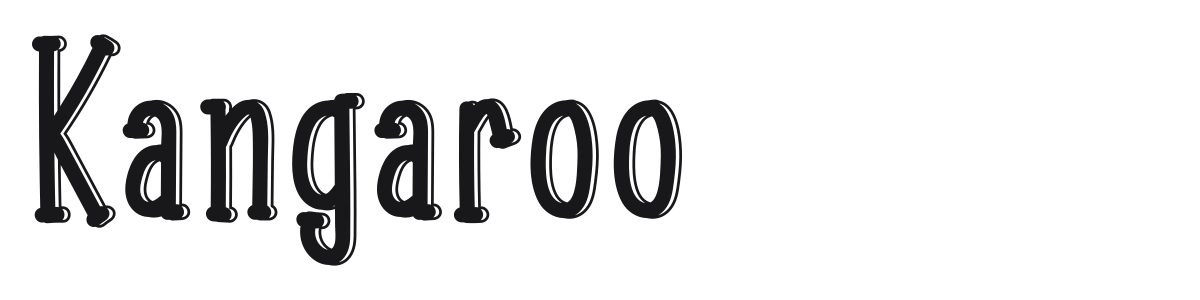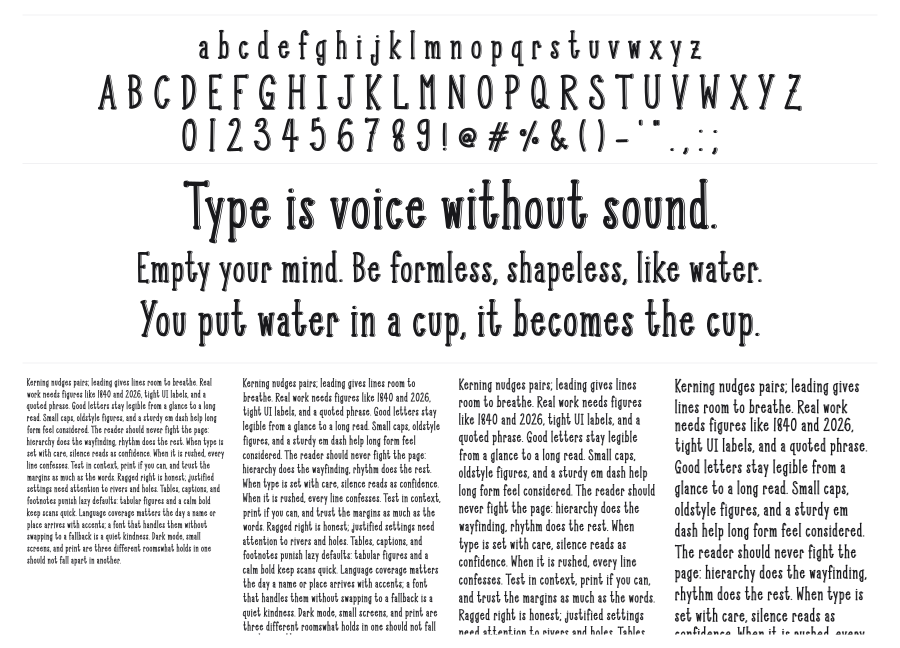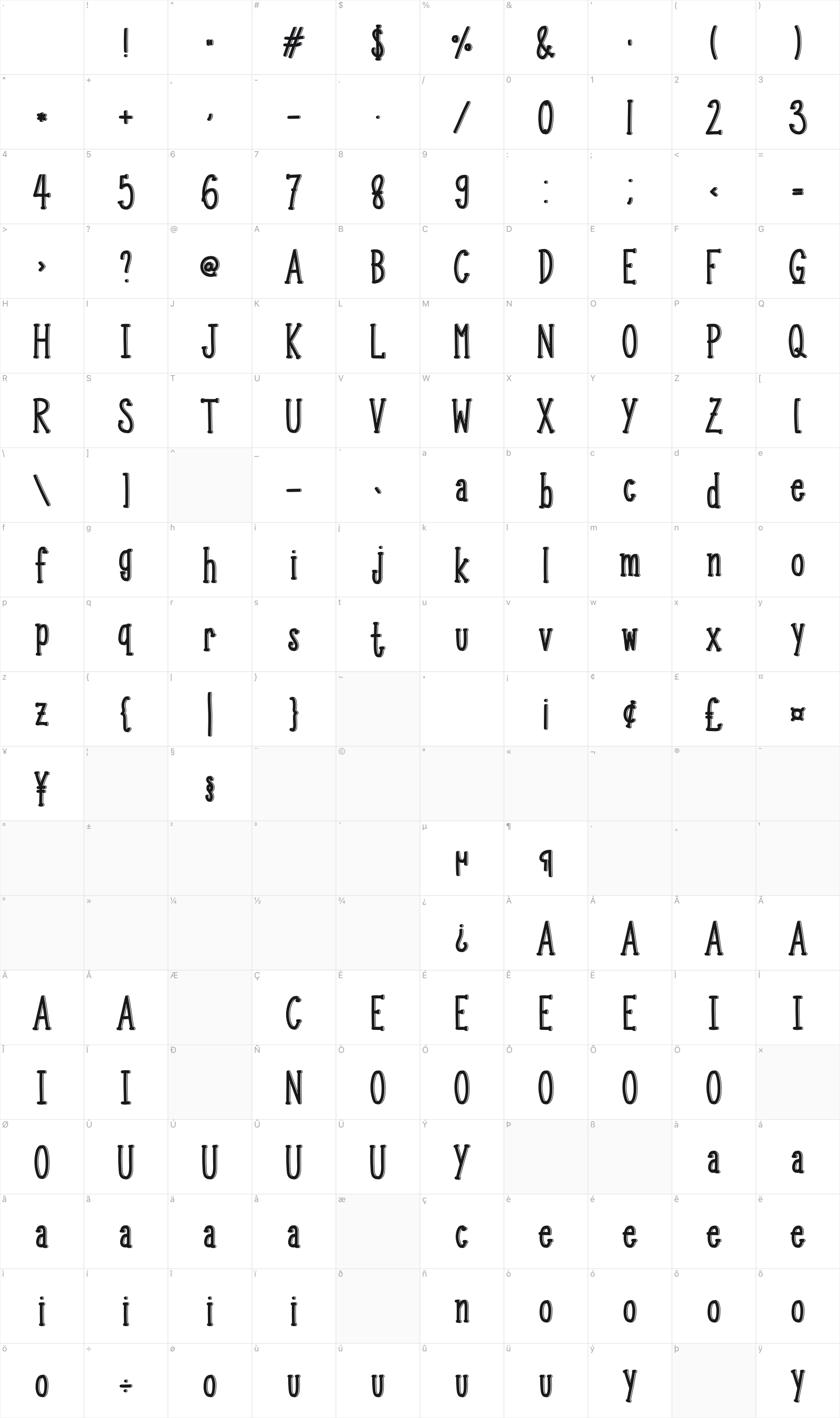
Kangaroo
Kangaroo is a condensed bold serif with an inline highlight cut through its thick strokes, giving it an engraved, dimensional look rooted in Victorian circus and fairground typography. The ball terminals and bracketed serifs add a rounded, approachable energy that keeps it from feeling too stiff. It works best large, where the inline detail reads clearly against the heavy weight.